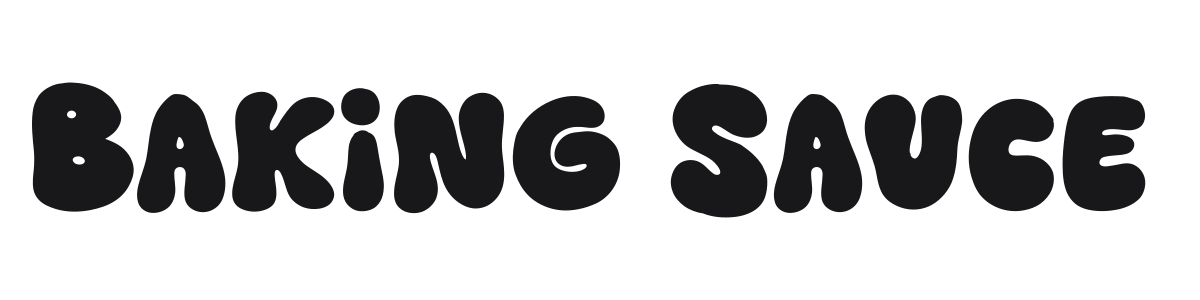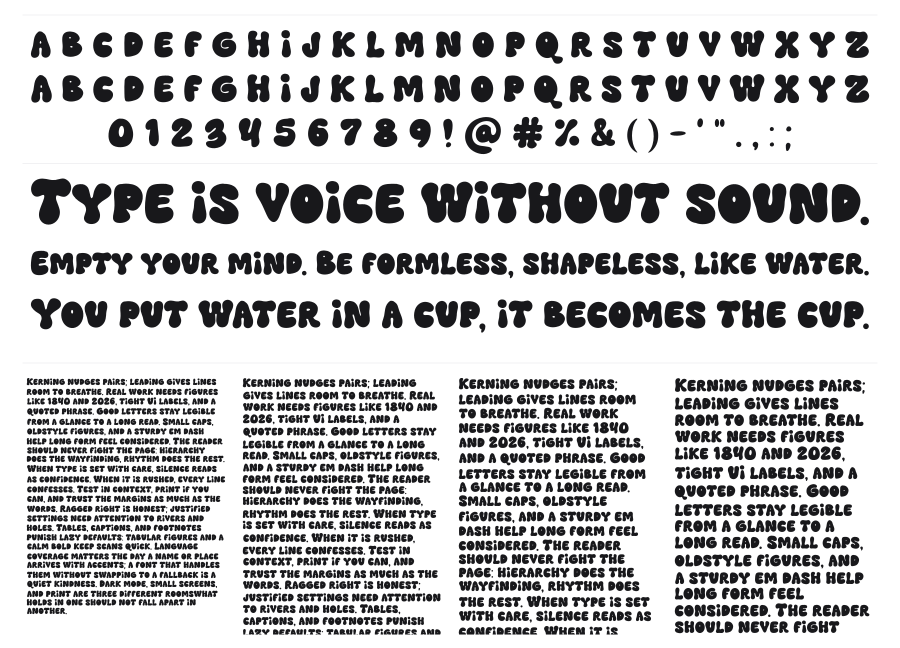
Baking Sauce
Baking Sauce is a fat, bubbly display font dripping with retro charm from the 70s, 80s, and 90s. Its ultra-bold, rounded strokes give every word a playful, hand-lettered presence that works loud and large. Great for posters, merchandise, and any project that needs unashamed fun.